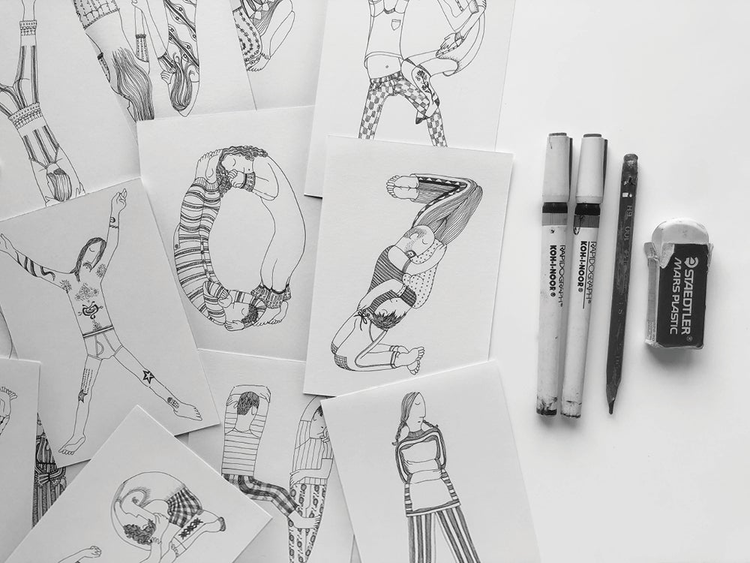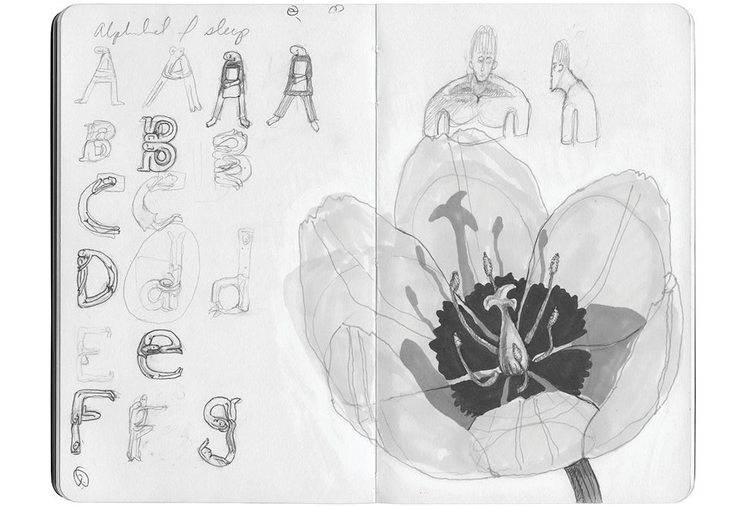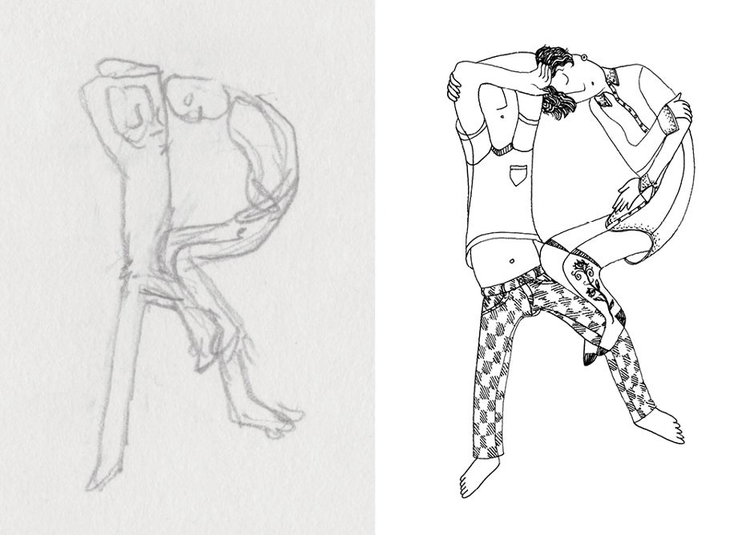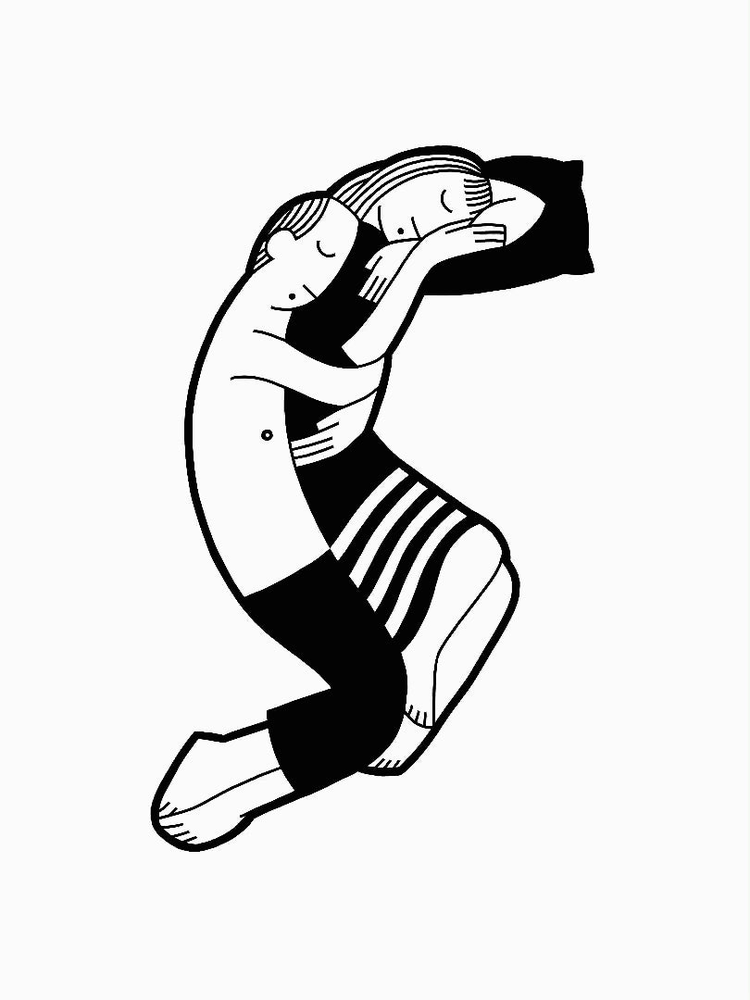
The development and design of typography is driven as much by available technology as it is by artistic motive. Serifs, for example, are believed to have originated in Roman type to smooth out the edges of lettering that had been chiseled into stone. Modern ligatures inherited their formation from the letterpress, as written contractions between letters (like æ, œ, and fi) made for an easier fit into metal typecasts. Kerning, which comes from the French word for a projecting corner or hinge, was defined by how metal overhangs on scripts could physically fit together.
Today, type designers and artists are using everything from 3D to motion graphics to digital illustration to expand on how we read what we’re reading. Adobe Stock recently partnered with 36 Days of Type to celebrate the incredible diversity and creative breadth in the field of typography. To help us understand the mechanics of creating type and to demystify the technology behind it, Adobe Stock reached out to illustrator Miriam Martinic and 3D designer Erin Kim for a step-by-step breakdown of their creative processes.
Miriam Martinic
Step 1: Stimulate your imagination
Listen to what moves you and be ready to run with an idea.
I look at a ton of amazing illustrators, designers, and lettering artists every day, but it’s direct experience — physical and emotional sensation — that moves me to create. My figurative art practice is strongly connected to my love of movement — competitive swimming and gymnastics when I was younger, tai chi and tango now.
The “Alphabet of Sleep” was inspired by a conversation about sleeping positions. My brother said he slept in the “K” position. That was the first letter. And why stop there? As the alphabet developed, some of the letters became couples. It was important to me to be inclusive in representing sexual orientation. In general, the letters are loosely based on friends.
Step 2: Get physical
Use the process of sketching to capture ideas as they come to you and keep them as reminders for when you get to drawing digitally.
I sketch for everything I do. My initial sketches are not always pretty. They are picture notes that say, “Hey, remember to draw this thing!” The final drawings for the alphabet series were drawn lightly in 6H pencil and then inked with rapidograph pen.
Sketching is the first step of efficiently working from general to specific. However real and specific ideas may feel in your imagination, they are intangible and general. You won’t see the missing pieces until you start sketching. Sketching is also a way of planning. Not sketching is like building a deck without a blueprint: You just go to the hardware store, buy some cement, concrete forms, lumber, and fasteners, and have at it. How well is that going to work?
Step 3: Bring it online
The scanning and editing process is never routine; always pay attention to what’s in front of you and use each step as a chance to tweak.
Next comes the scanning and photo editing. I use batch processing to speed up the work, but I can’t go on autopilot. For example, I made this project in the summer in fluctuating humidity, which had a huge effect on paper. This meant that, on humid days, drawings had thicker lines.
Once everything is scanned, I do image editing in Photoshop. I individually adjust levels and curves to achieve more uniform line weight among the letterforms.
Step 4: Draw again!
Digital drawing is your chance to play around with options whenever and wherever you feel inspired.
It’s actually the (unfun) scanning and editing process that brought me to digital drawing. I now draw almost exclusively on my iPad in Procreate. Working digitally maximizes my creative time and makes me super mobile. I used to pack tons of art supplies for vacations or trips. Now, I just take my iPad.
I make multiple sketches and revise until I’m satisfied. Then I reduce the opacity of the final sketch and make the final drawing in another layer.
Step 5: Give your project legs
Keep playing around with your work, even once it’s “done.” There are always opportunities to make your work scale or adapt in new and interesting ways.
I tend to return to themes. I recently started spelling words with the “Alphabet of Sleep” as birthday cards for my nieces and nephews. While the delicate lines in the original drawings are charming, I wasn’t happy with how the letters scaled. I redrew the letters for “Alphabet of Sleep,” adding racial diversity, alternate characters for the “e,” and robust line work for scalability.
Step 6: Keep some perspective
An important unmentioned part of the creative process is the unsung supporters. When I was in college, I remember learning about “Day Without Art,” a response to the loss of artists during the AIDS crisis. At the time, I remember imagining the world without artists and their art. Years later, this makes me ask another question: “What would the world be like without supporters of the arts?” An immense thank you [goes] to my parents, teachers, partner, sister, other artists, friends, and fans. Without you, none of this would exist.